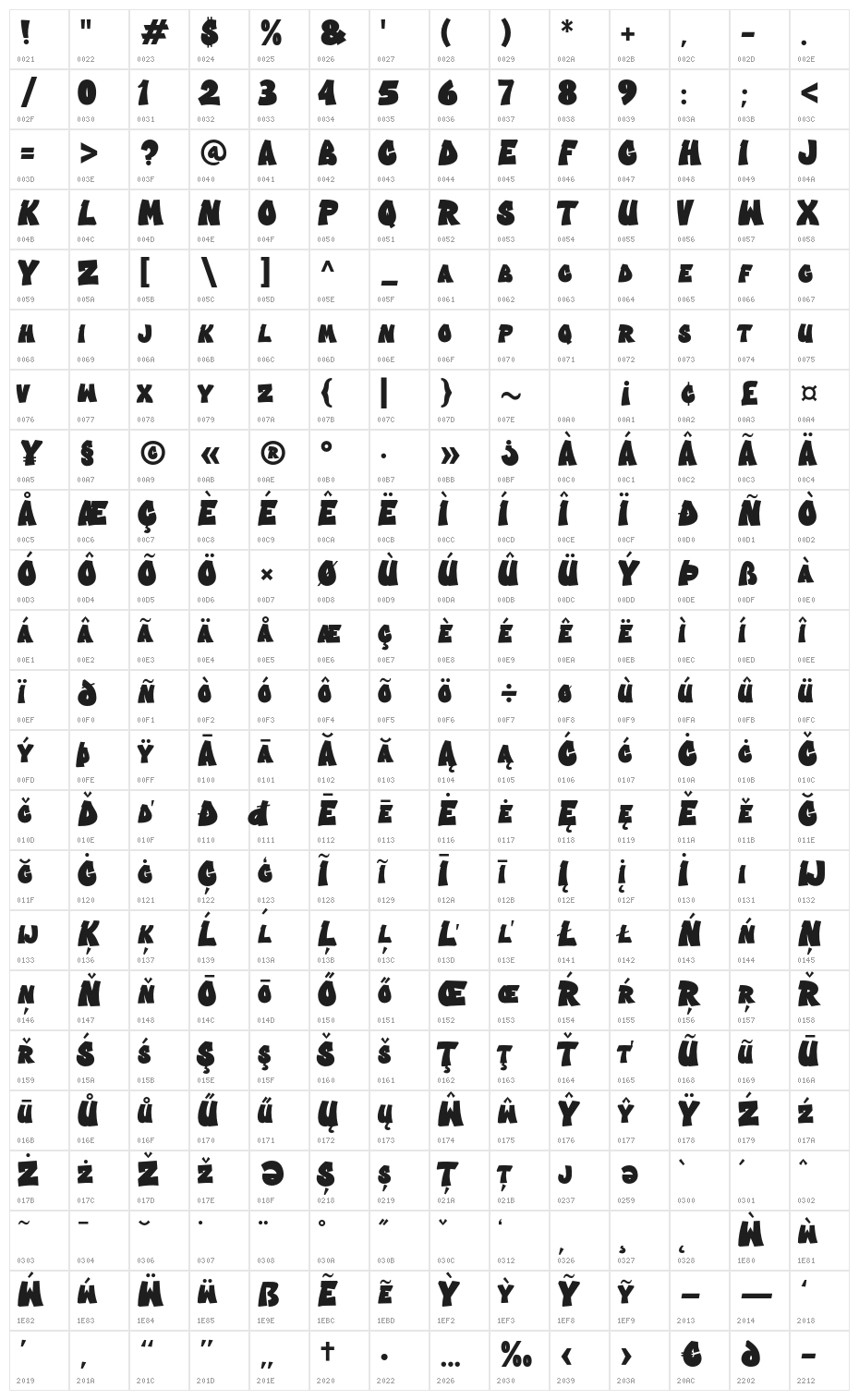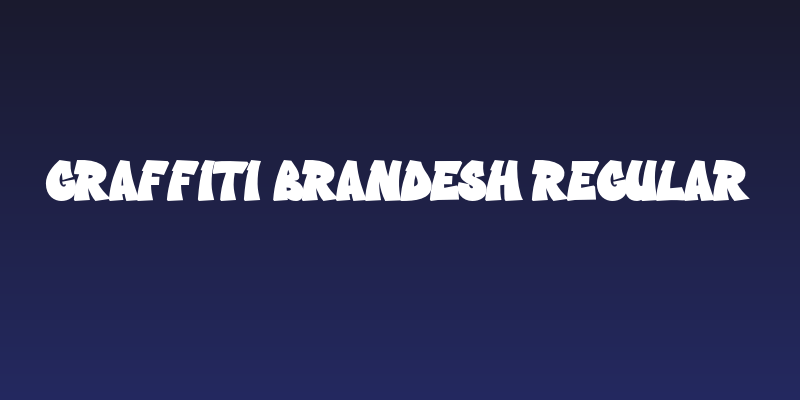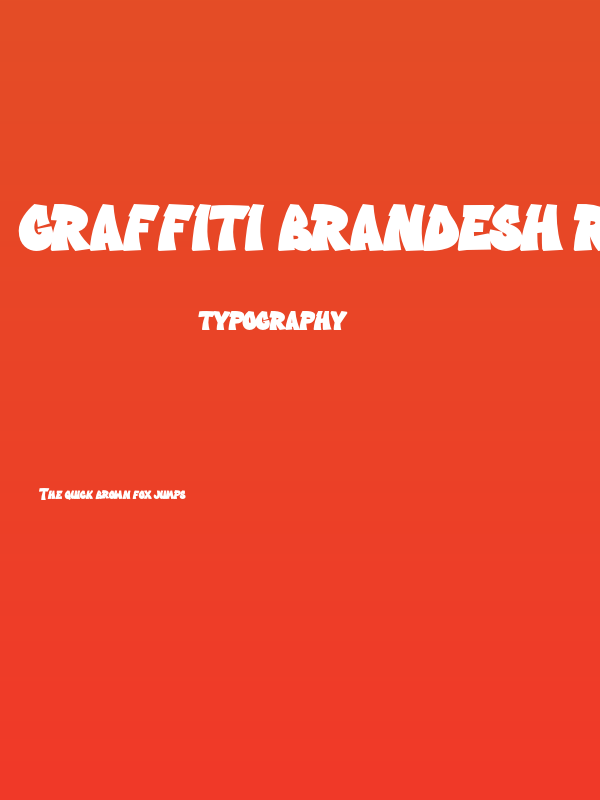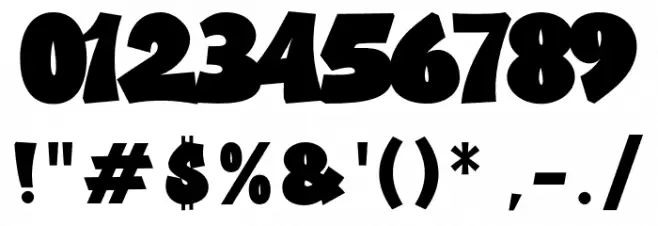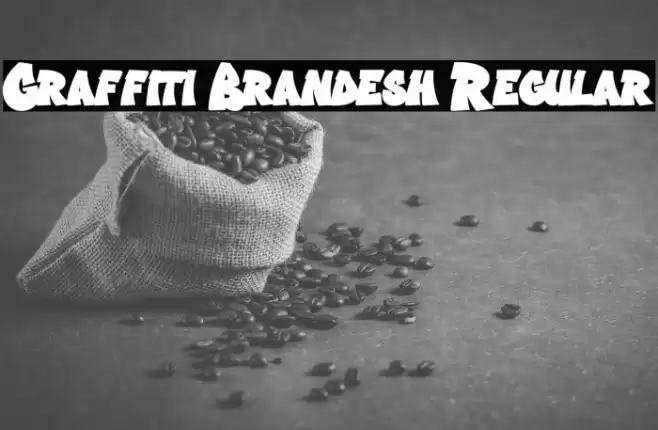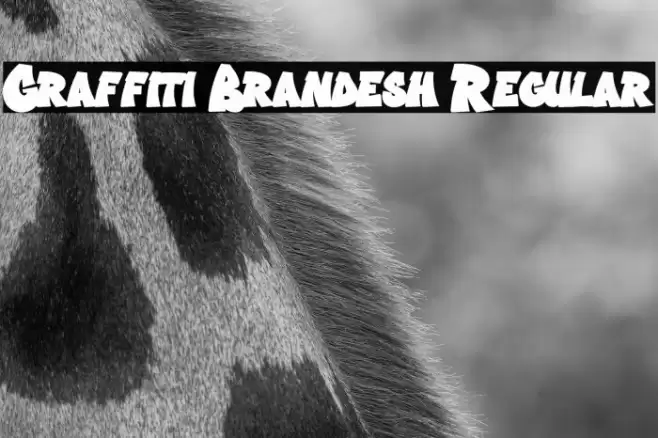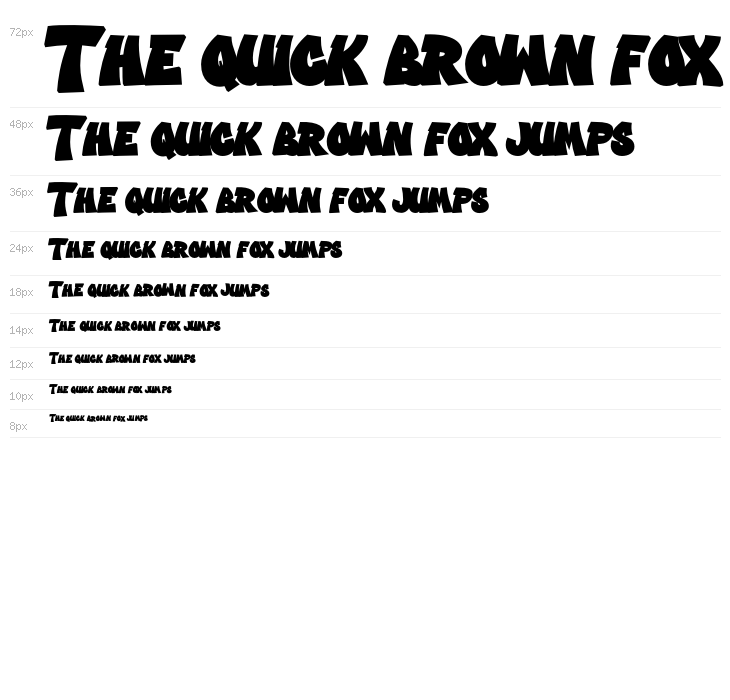
Graffiti Brandesh Regular Font
Graffiti Brandesh Regular Description
This font exudes a bold and dynamic graffiti style, characterized by its thick, uneven strokes and playful, energetic appearance. The letters are designed with a sense of movement and flair, capturing the essence of street art. Each character is uniquely crafted, with exaggerated curves and angles that give the font a lively and rebellious feel. The numbers and special characters maintain this aesthetic, ensuring consistency throughout. This font is perfect for projects that require a strong, urban vibe, making it ideal for designs that aim to stand out with a bold statement.
| Overall Style | Urban, Energetic, Rebellious |
| Proposed Projects | Ideal for street art-inspired designs, urban-themed posters, and edgy branding projects. |